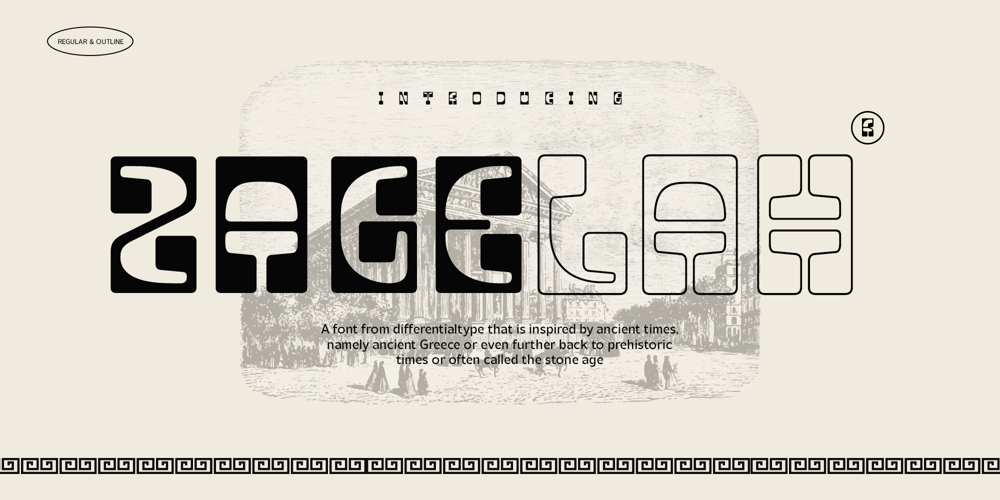
Zagelah Font Family was designed by Sidik Sidik and published by Differentialtype. Zagelah contains 2 styles and family package options. Discover the bygone era charm with Zagelah – a display font deeply rooted in vintage inspiration. Imbued with the essence of the stone age, Zagelah breathes a nostalgic aura into any creation – lending an unforgettable retro appeal to your branding efforts, striking titles, packaging designs, logos, and more diverse projects. Embrace the spirit of the past, reflect it in your work, and make every piece timeless with Zagelah.